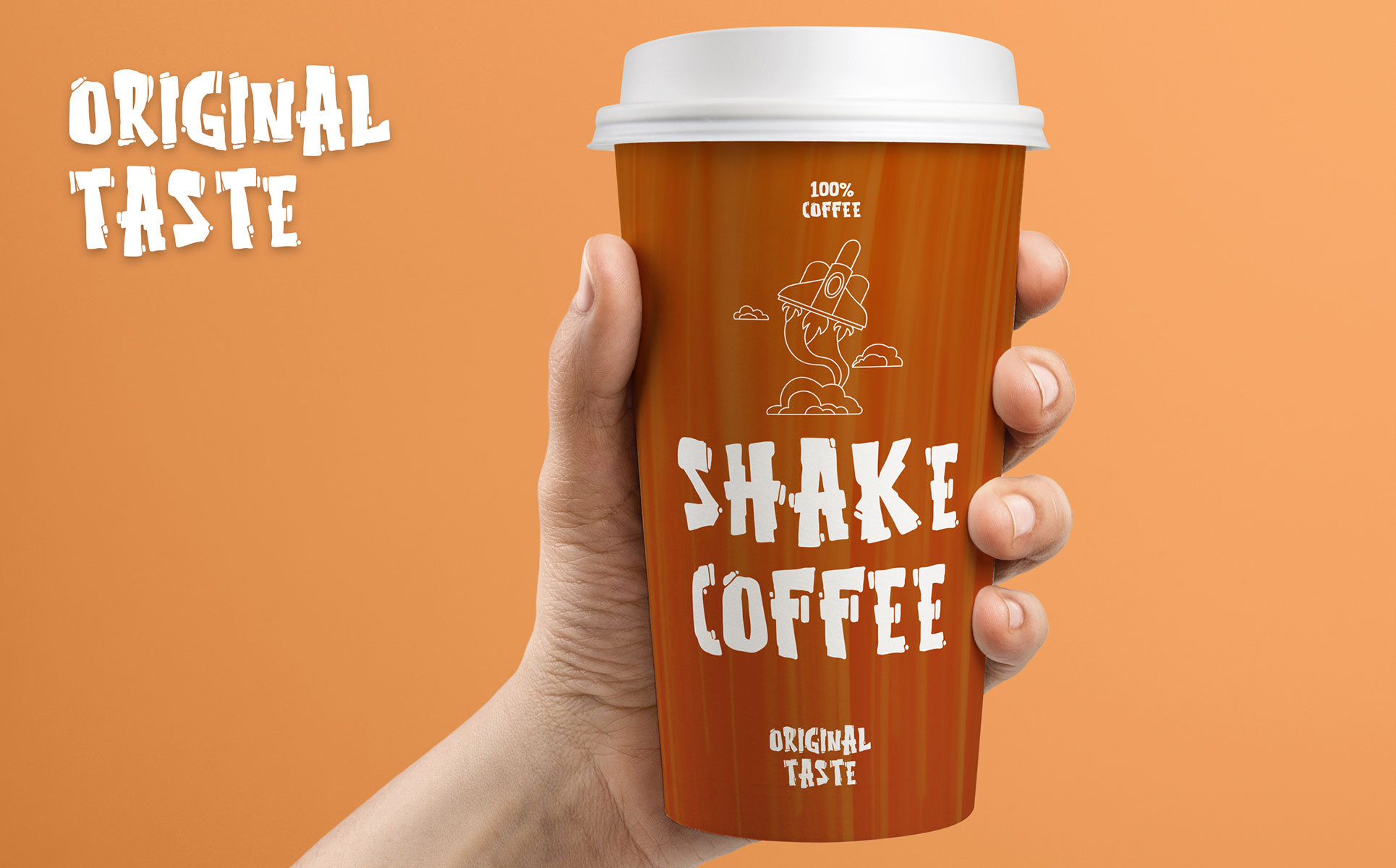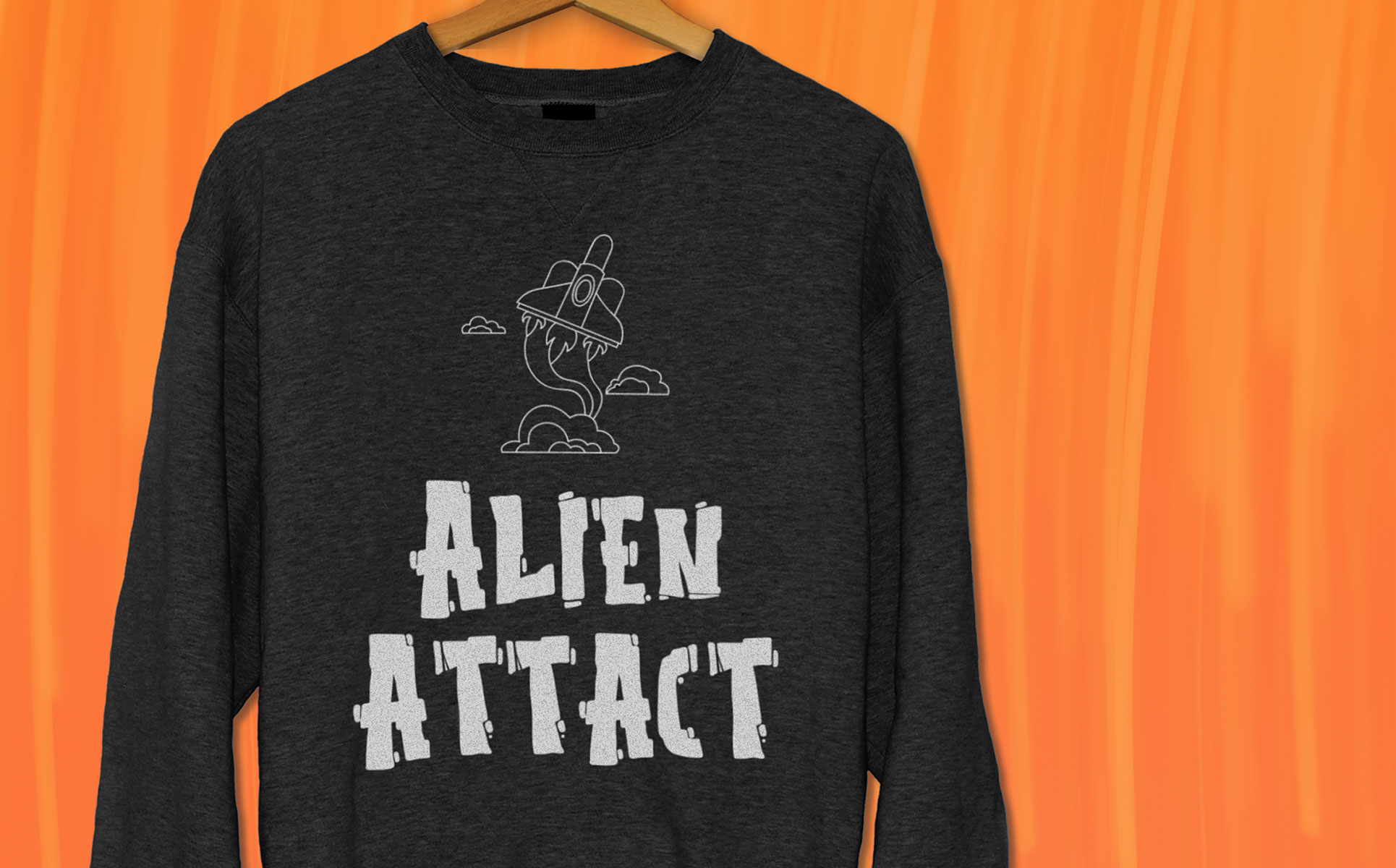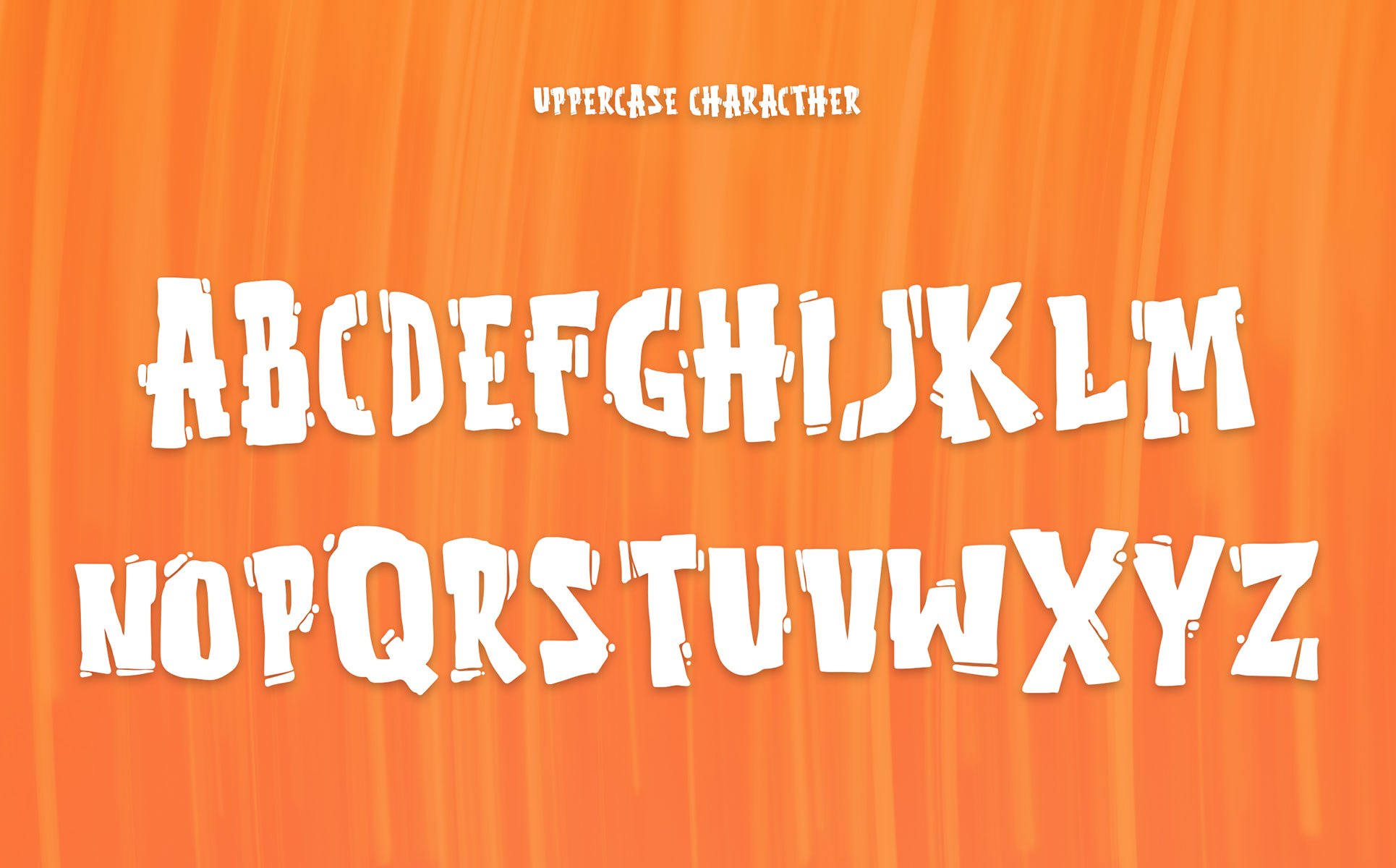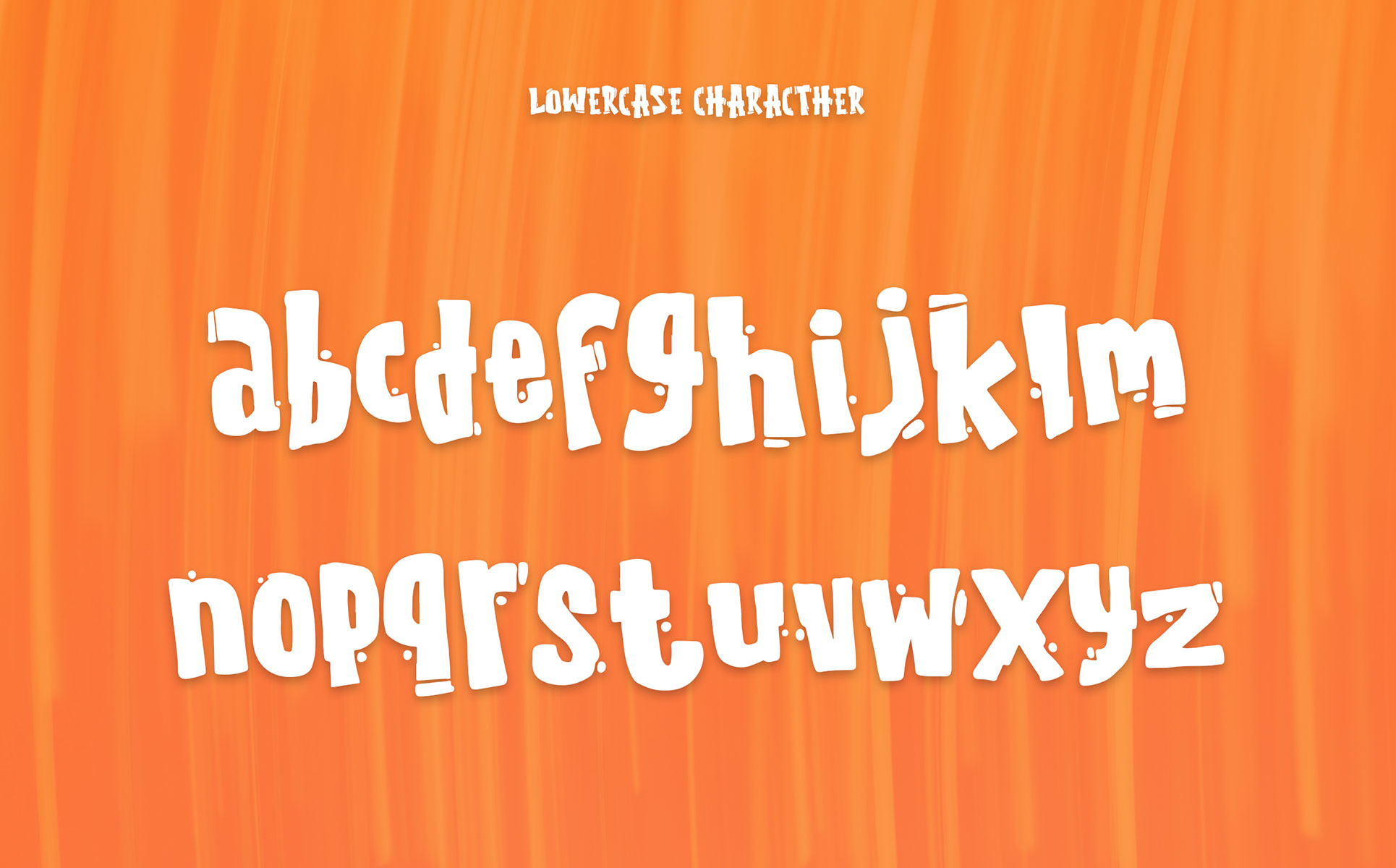
The Quakeer - Display Font
We are happy to introduce our new font "The Quakeer" is a bold display font, this font looks funny, cute, kids, cartoon, playful, catchy and easy to use.
The Quakeer Font is the best choice for your professional design projects, including : logo, poster design, t-shirt, headline, flyer, cd cover album, quotes, business card, branding, magazines, social media, advertisements, product designs, or something that need playful or cartoon looks.